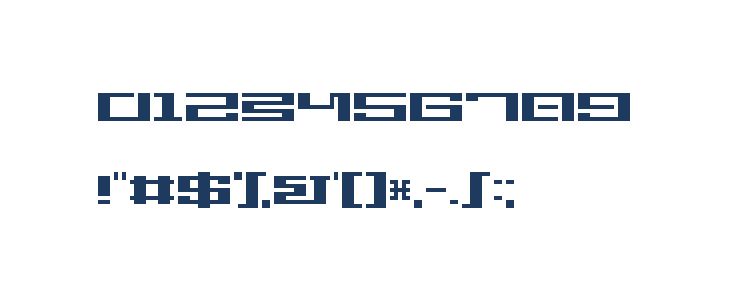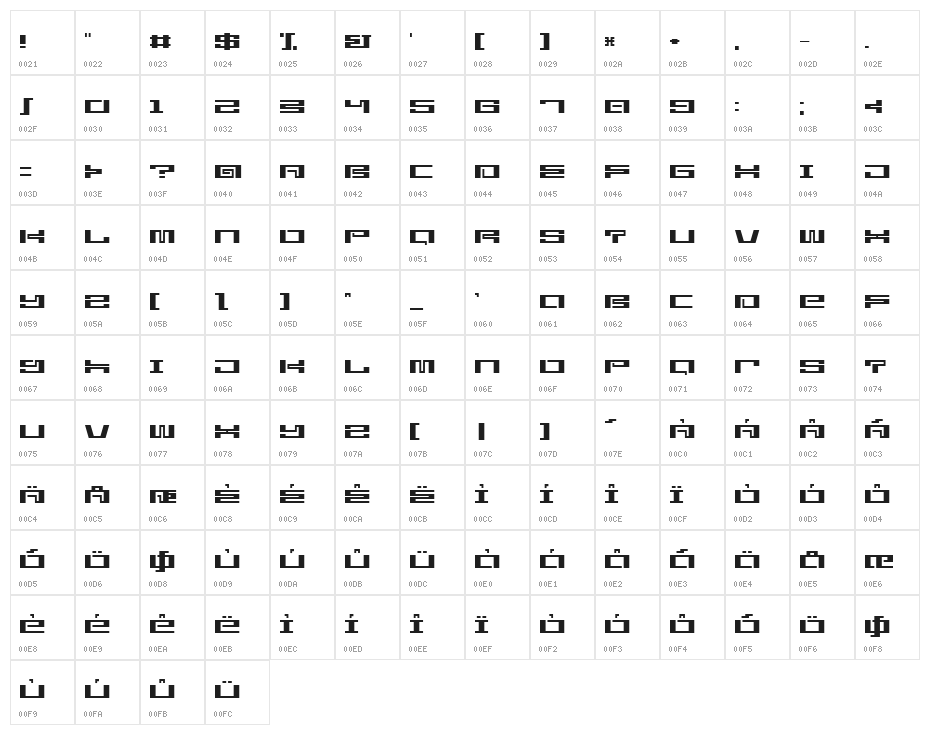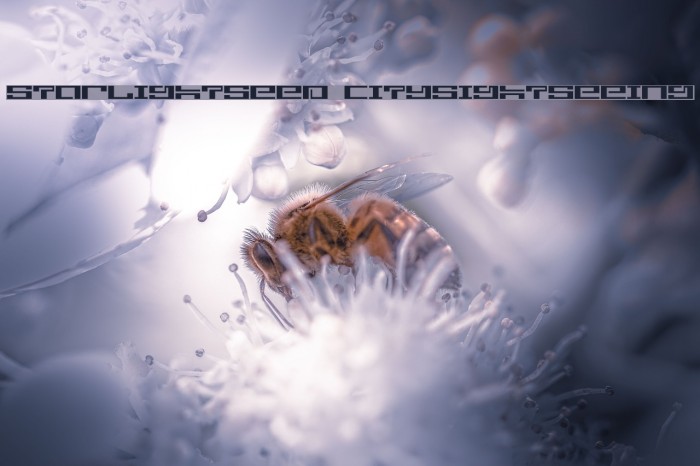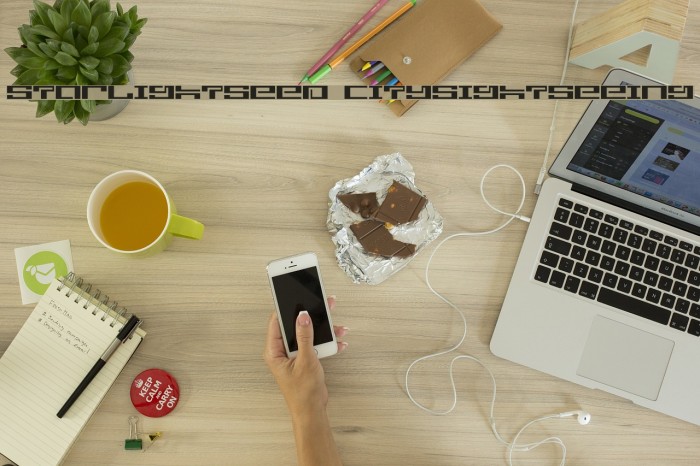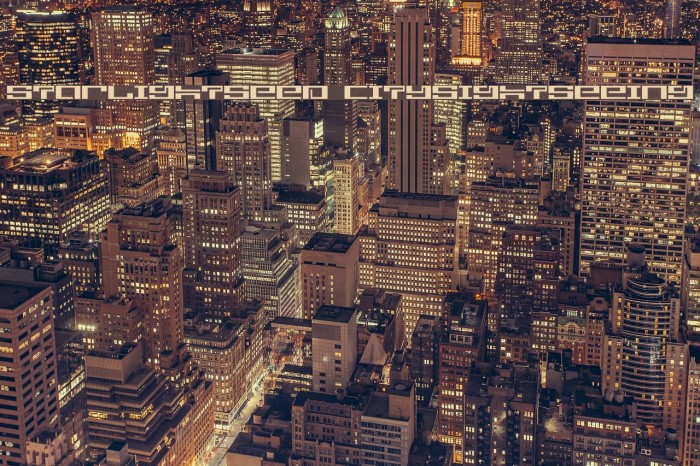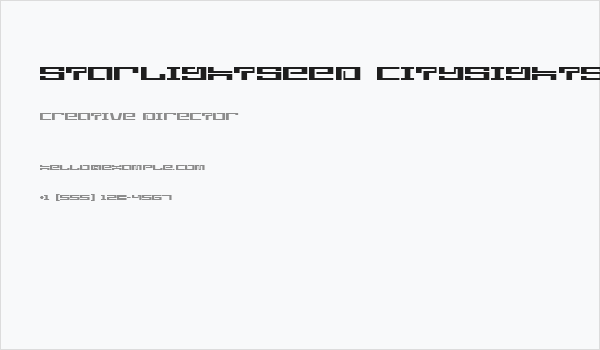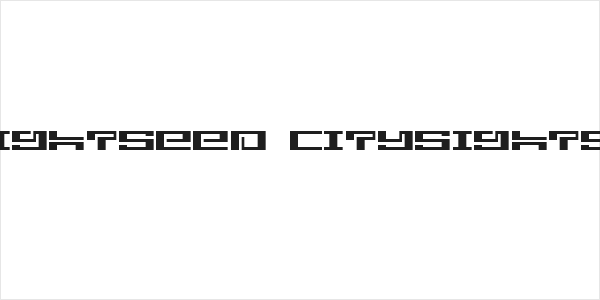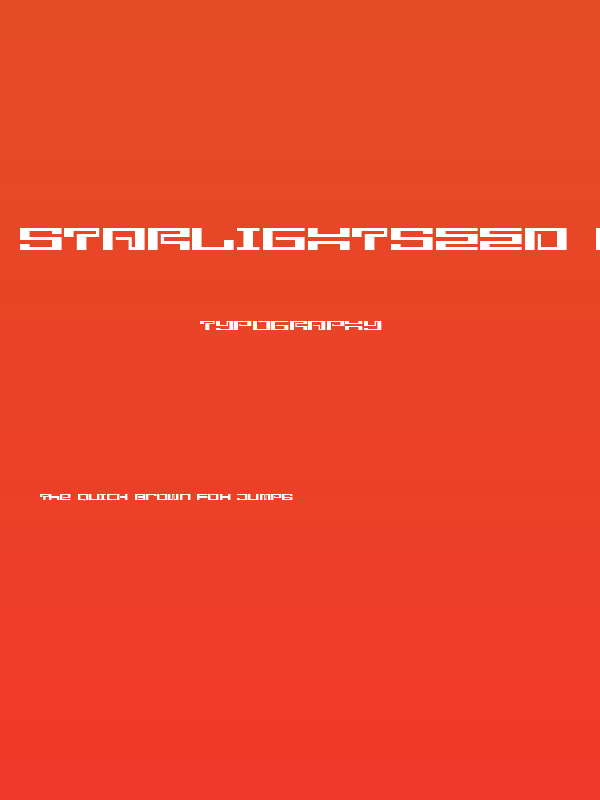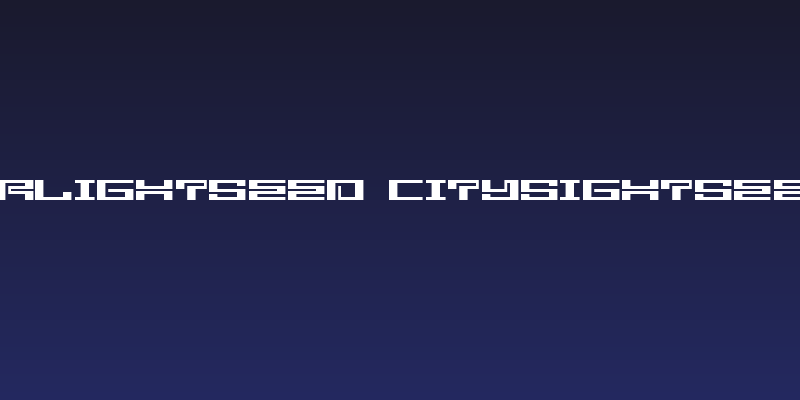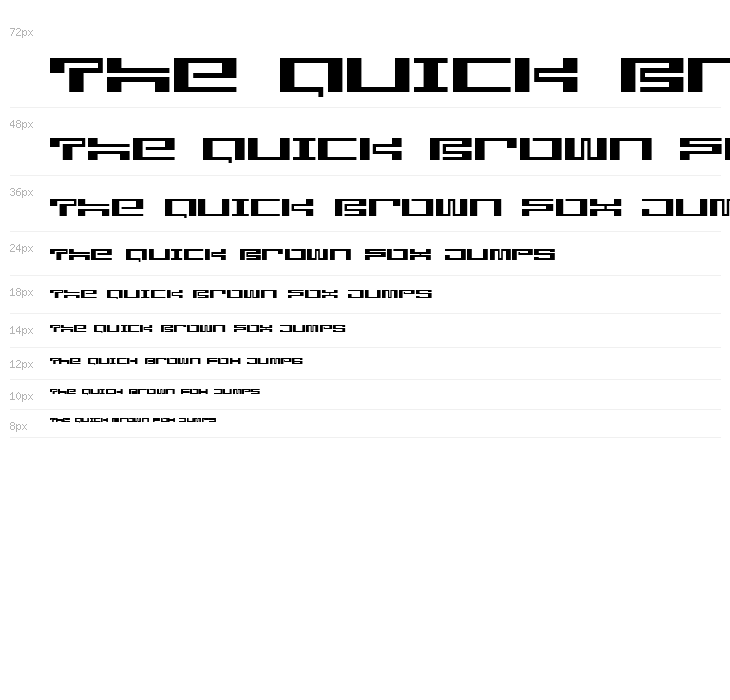
starlightseed citysightseeing Font
starlightseed citysightseeing Description
This font features a bold, geometric design with a futuristic and digital aesthetic. The characters are constructed with sharp angles and straight lines, creating a blocky and modular appearance. The uppercase and lowercase letters share a similar structure, maintaining consistency across the alphabet. The numerals and special characters follow the same design principles, ensuring uniformity. This font's style is reminiscent of digital displays or sci-fi themes, making it suitable for modern and tech-oriented projects.
| Proposed Projects | Ideal for tech branding, sci-fi posters, video game interfaces, and digital-themed advertisements. |